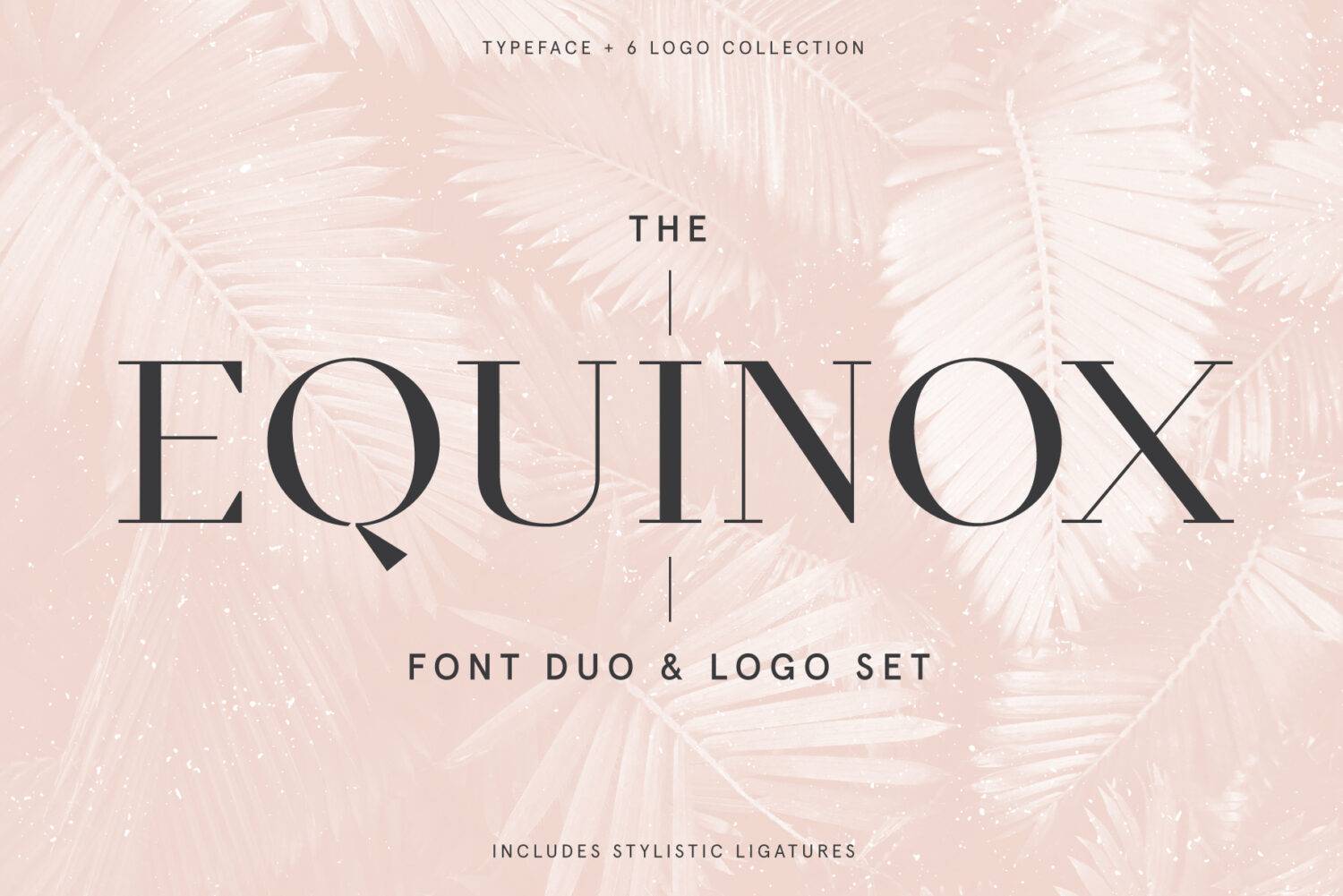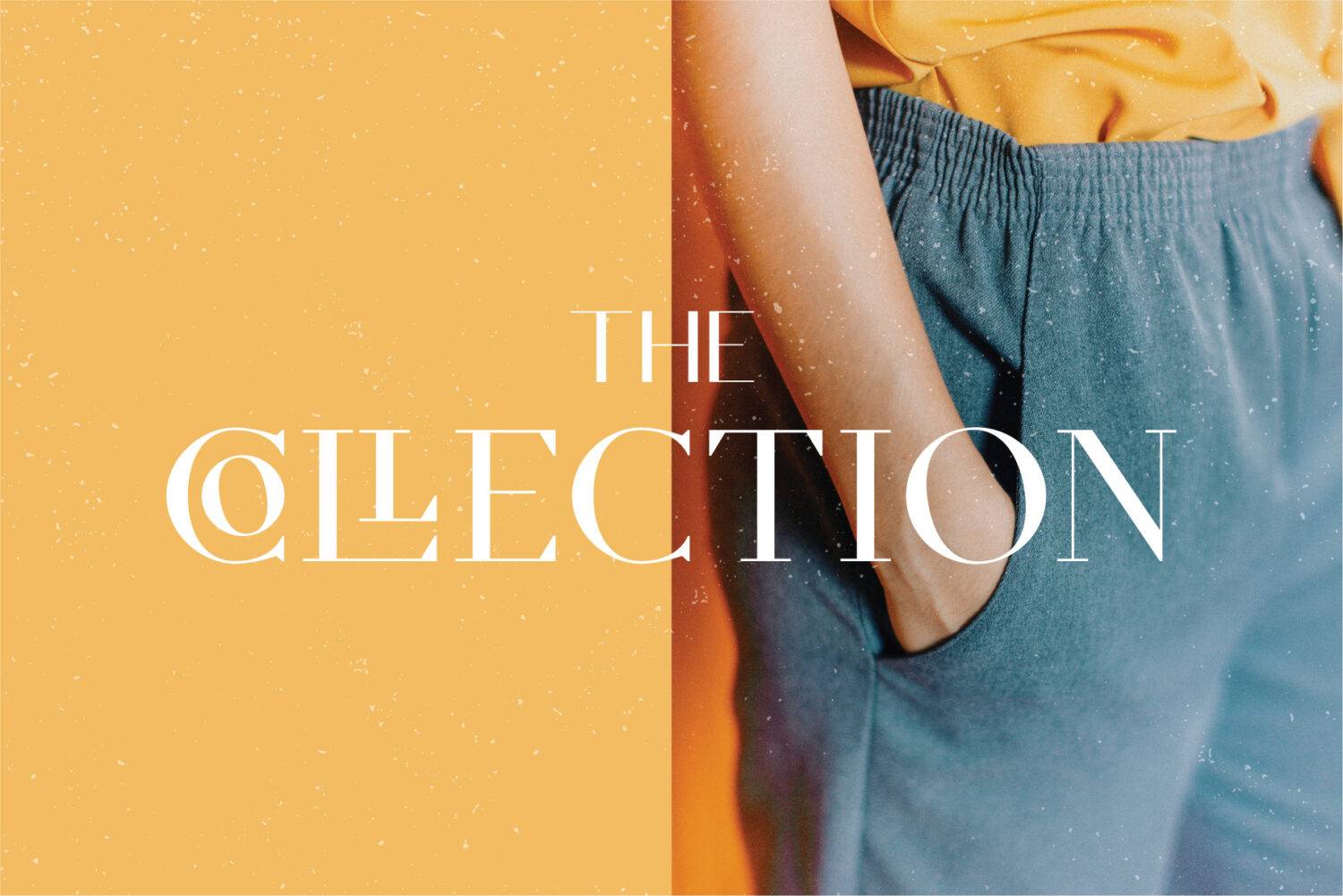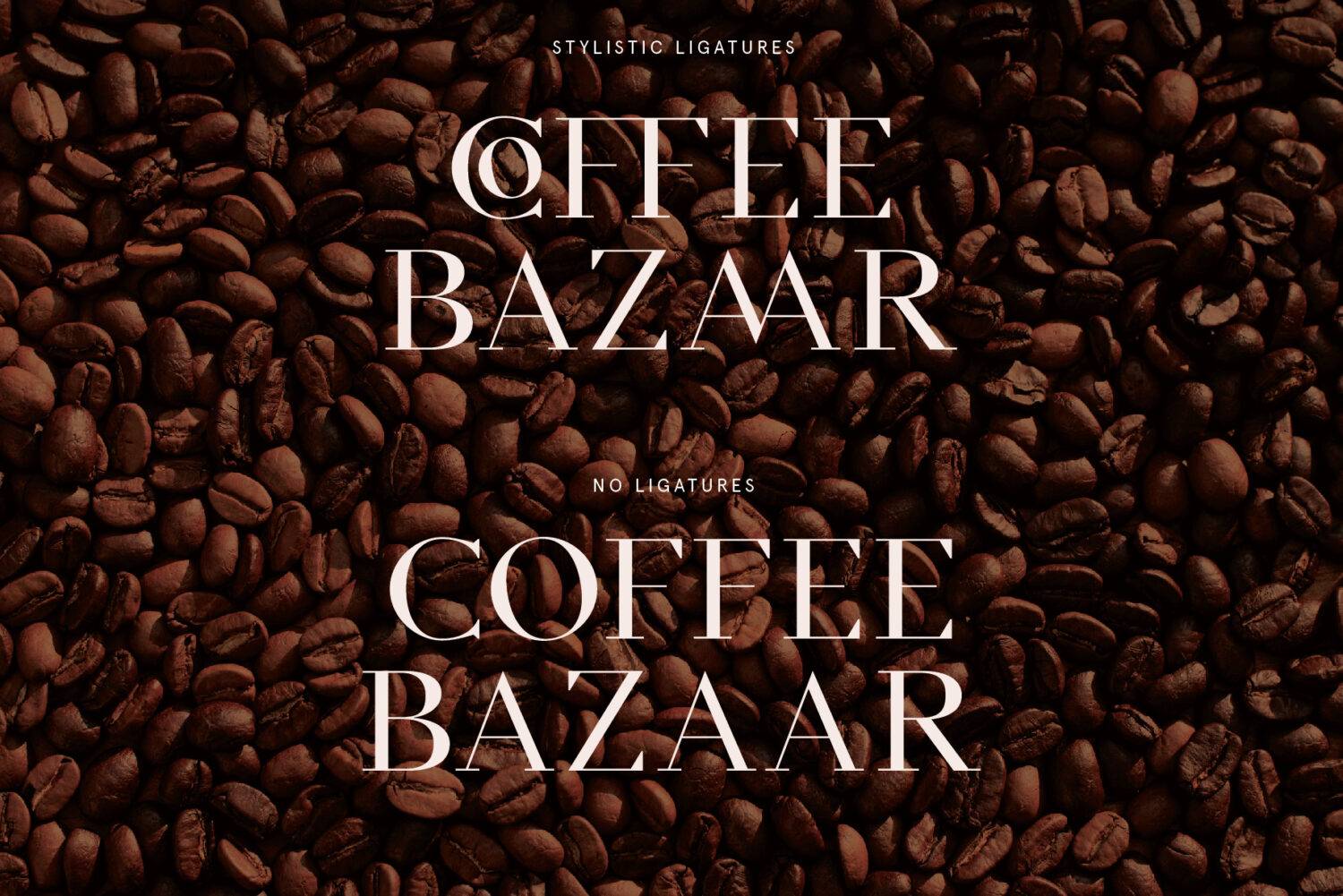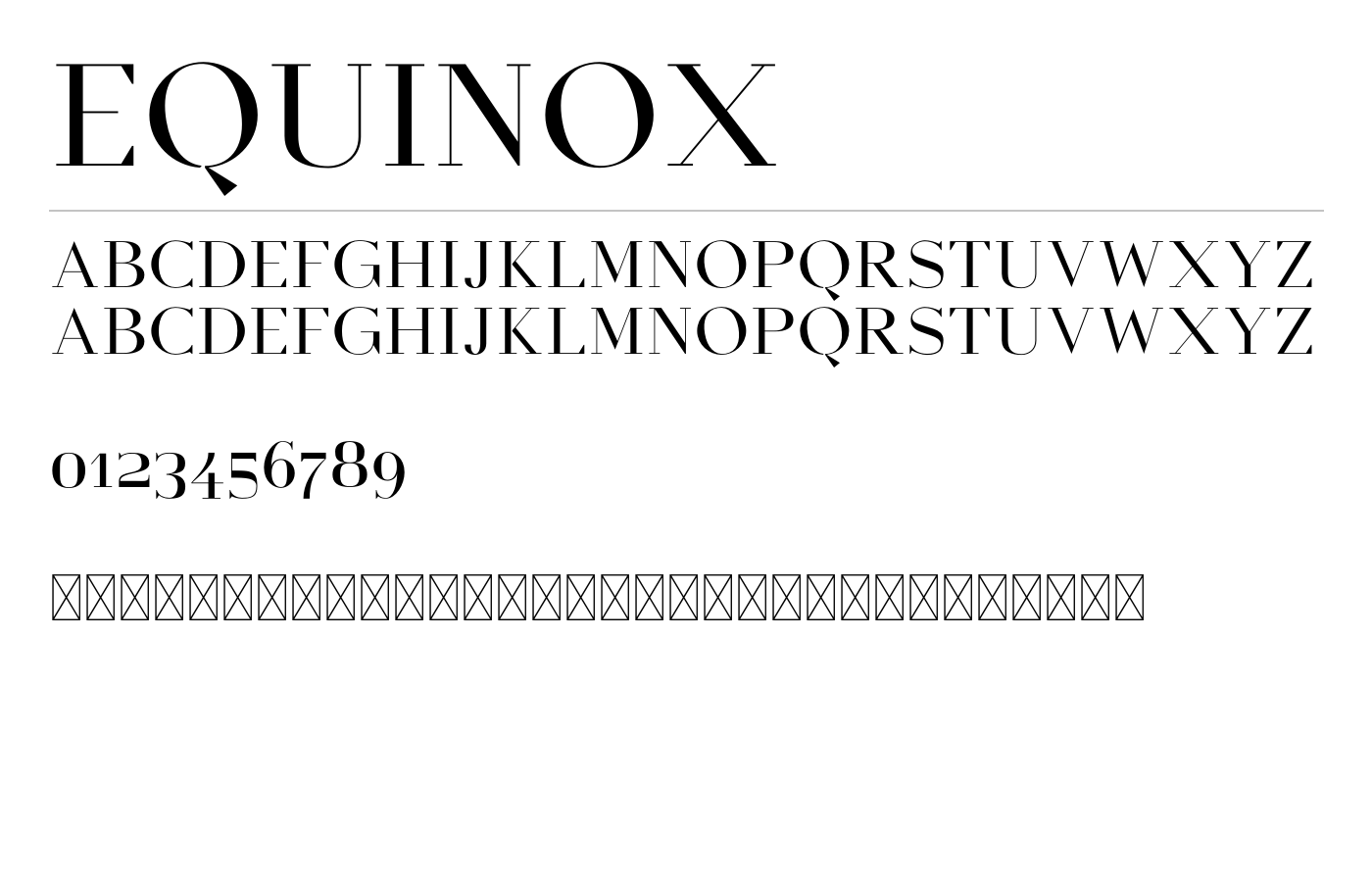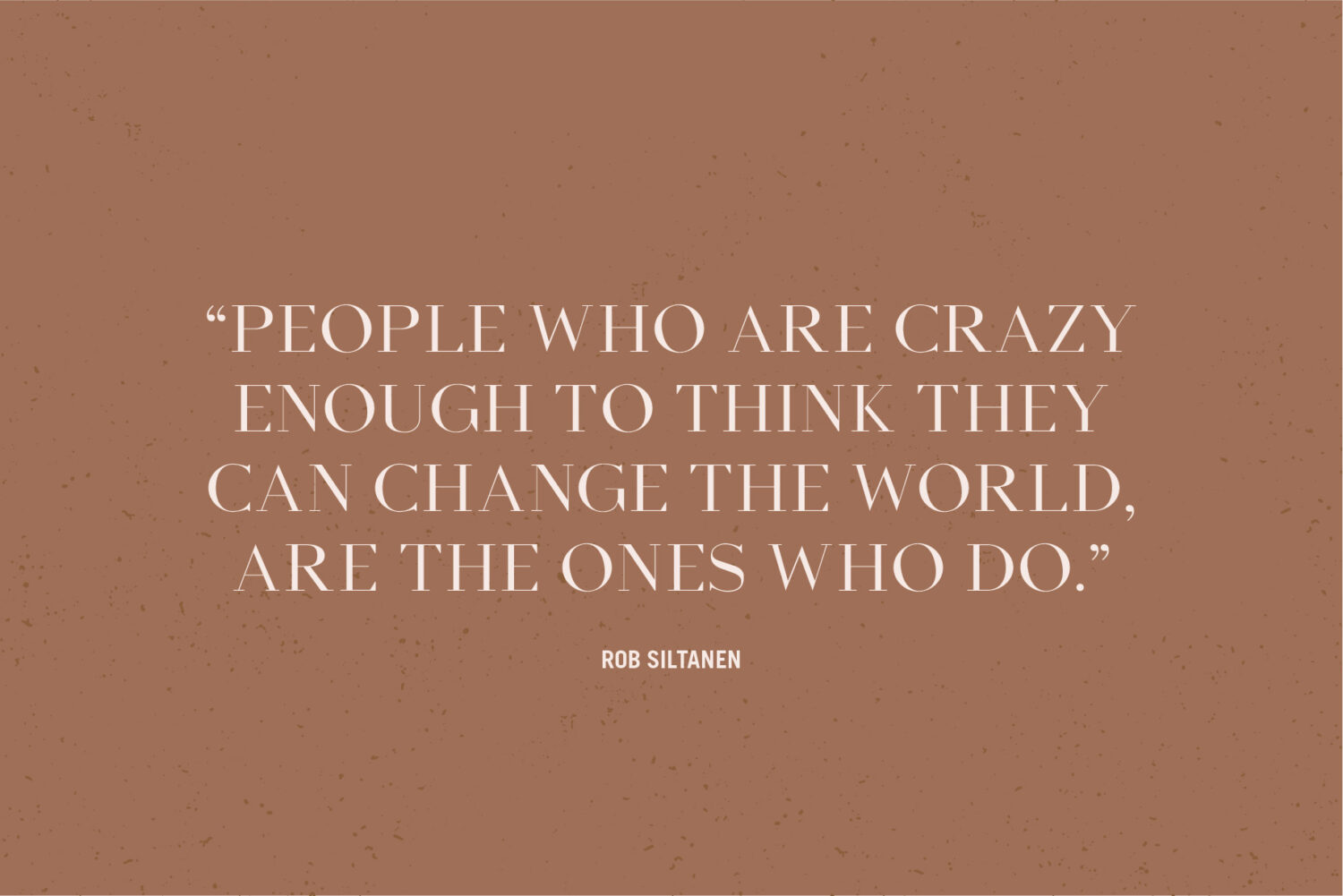
Equinox is a refined Didone serif font characterized by its elegant high contrast between thick and thin strokes, slender serifs, and tall, narrow letterforms. Its stylish details, such as the sharp pointed terminals and distinct Q tail, create a sophisticated and luxurious feel, making it perfect for upscale branding, fashion editorials, and elegant headlines. This font excels in conveying a modern yet classic elegance in contexts where high-end visual impact matters.
Equinox